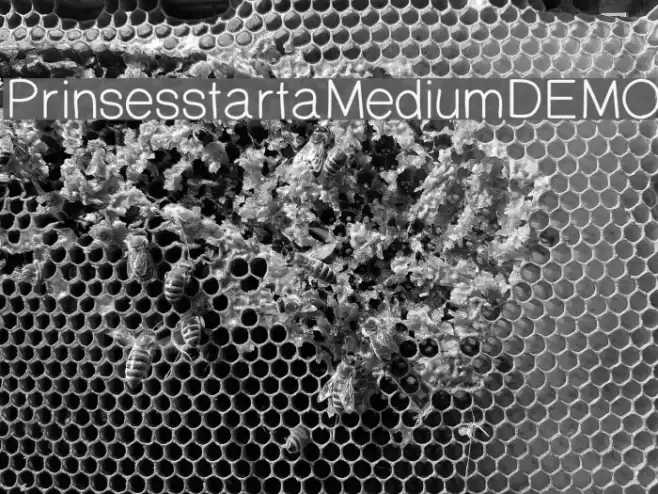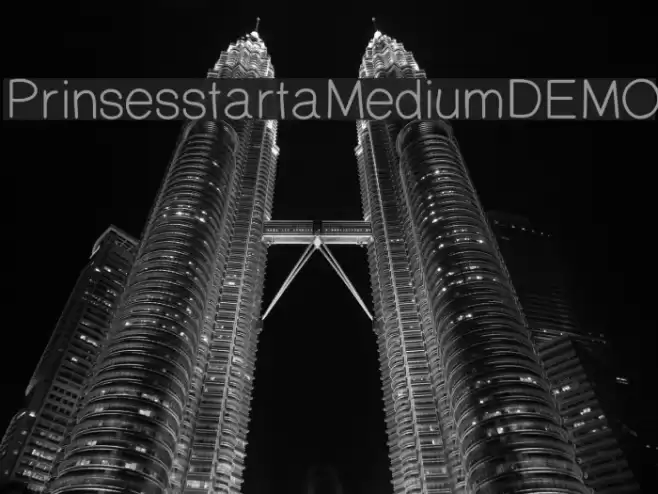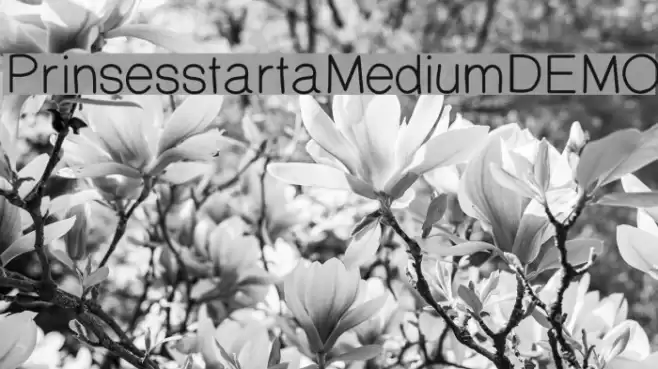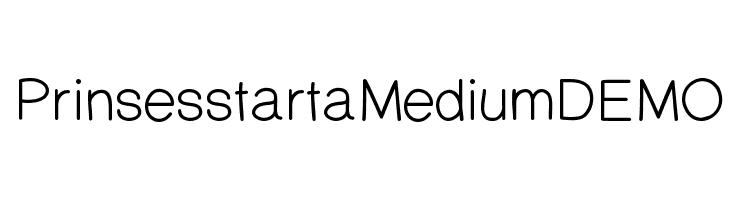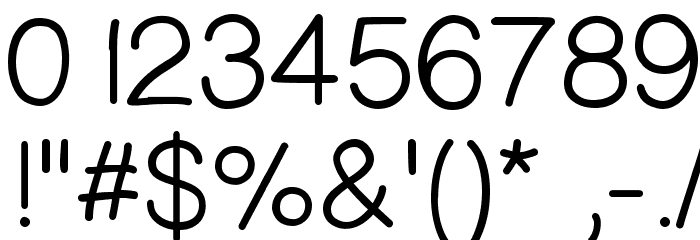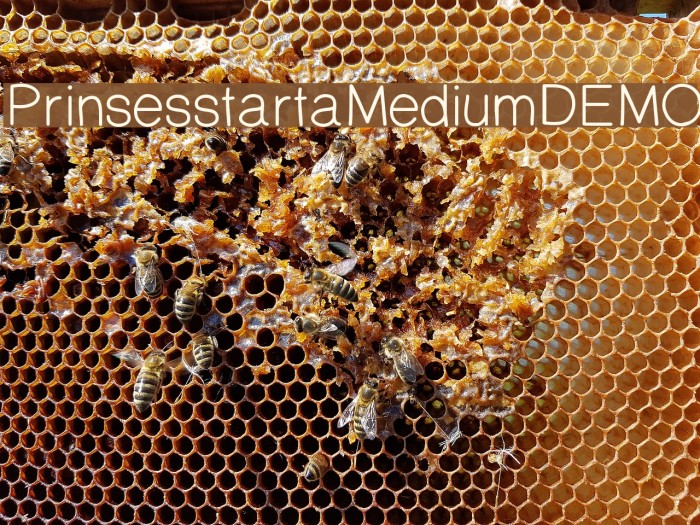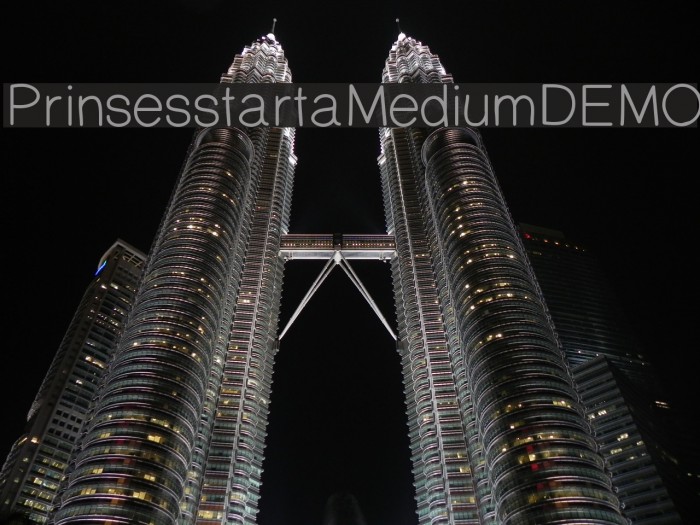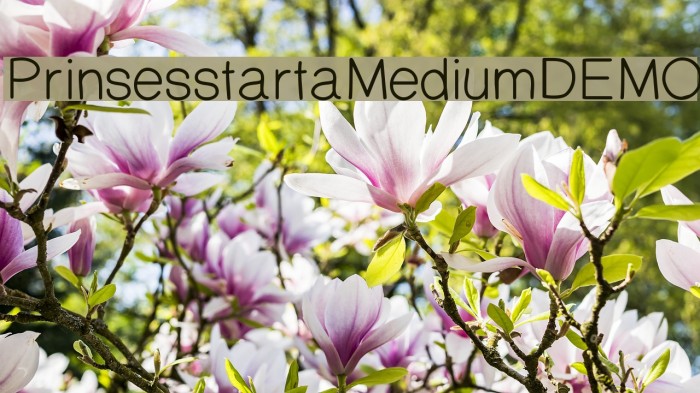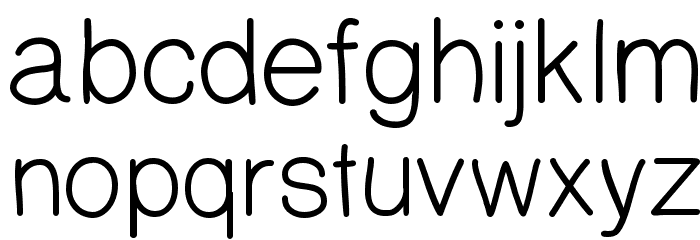
PrinsesstartaMediumDEMO Font
PrinsesstartaMediumDEMO Description
This font features a clean and modern sans-serif design with a medium weight. The characters are evenly spaced, providing a balanced and readable appearance. The uppercase letters are slightly taller than the lowercase, maintaining a consistent line weight throughout. The numerals are clear and distinct, making them easy to read. Special characters are well-defined, adding versatility to the font. The overall style is minimalistic, making it suitable for a variety of applications.
A clean, modern sans-serif font with medium weight and balanced spacing from Handwritten fonts.
- Proposed Projects: Ideal for digital content, branding, advertising, and editorial design due to its clarity and modern aesthetic.